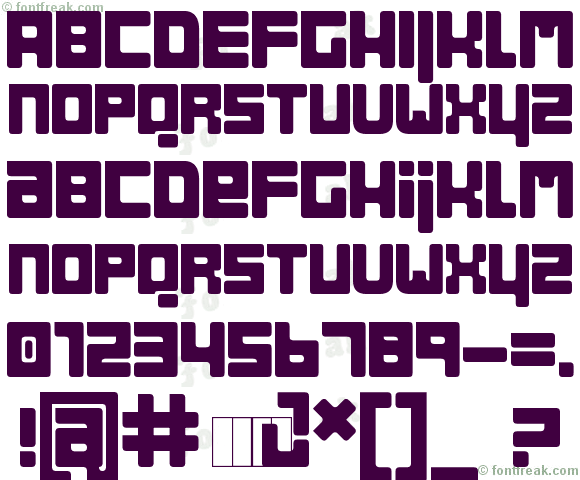
Bob Filled
Bob Filled, designed by Espen Morten Kvalheim, is a striking display font that captures attention with its bold and filled appearance. This font falls into the category of decorative typefaces, making it ideal for creative projects that require a strong visual impact. The font's stroke weight is consistent and substantial, providing a robust presence that stands out in any context. Its rounded edges and smooth contours give it a friendly yet modern aesthetic, while the slight variations in thickness add a touch of dynamism.
Bob Filled is characterized by its high visibility and clarity, making it an excellent choice for various applications. It works beautifully for wedding invitations, where its playful yet sophisticated look can elevate the overall design. For movie posters, Bob Filled can convey a sense of excitement and energy, drawing viewers in with its eye-catching style. Additionally, it serves well in restaurant menus, where its bold appearance can highlight dish names effectively. Small business owners will find this font particularly useful for branding materials, as it conveys a sense of approachability and creativity.
Targeted at graphic designers, content creators, and entrepreneurs, Bob Filled offers versatility that appeals to a wide range of audiences. Whether you're crafting a logo, designing a flyer, or developing social media graphics, this font provides the perfect finishing touch to your projects.
The standout feature of the Bob Filled font is its unique ability to blend boldness with approachability, making it suitable for both serious and lighthearted contexts. Its freeware license allows for easy access, enabling users to enjoy the Bob Filled font free download without any hassle. With its distinct style and practical applications, this font is sure to enhance your design endeavors.